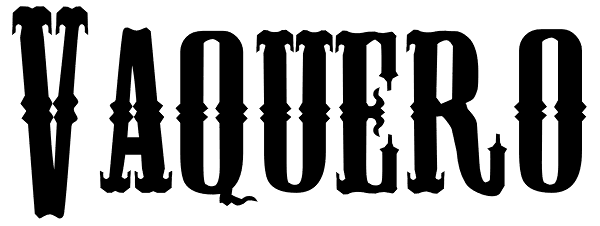
Vaquero
Vaquero is a Wild West style font. It is characteristic of a lot of western era signage, with super-narrow characters and unusual decorative spurs and serifs. There are some similarities in Vaquero to some of our other western fonts. It sort of ties...